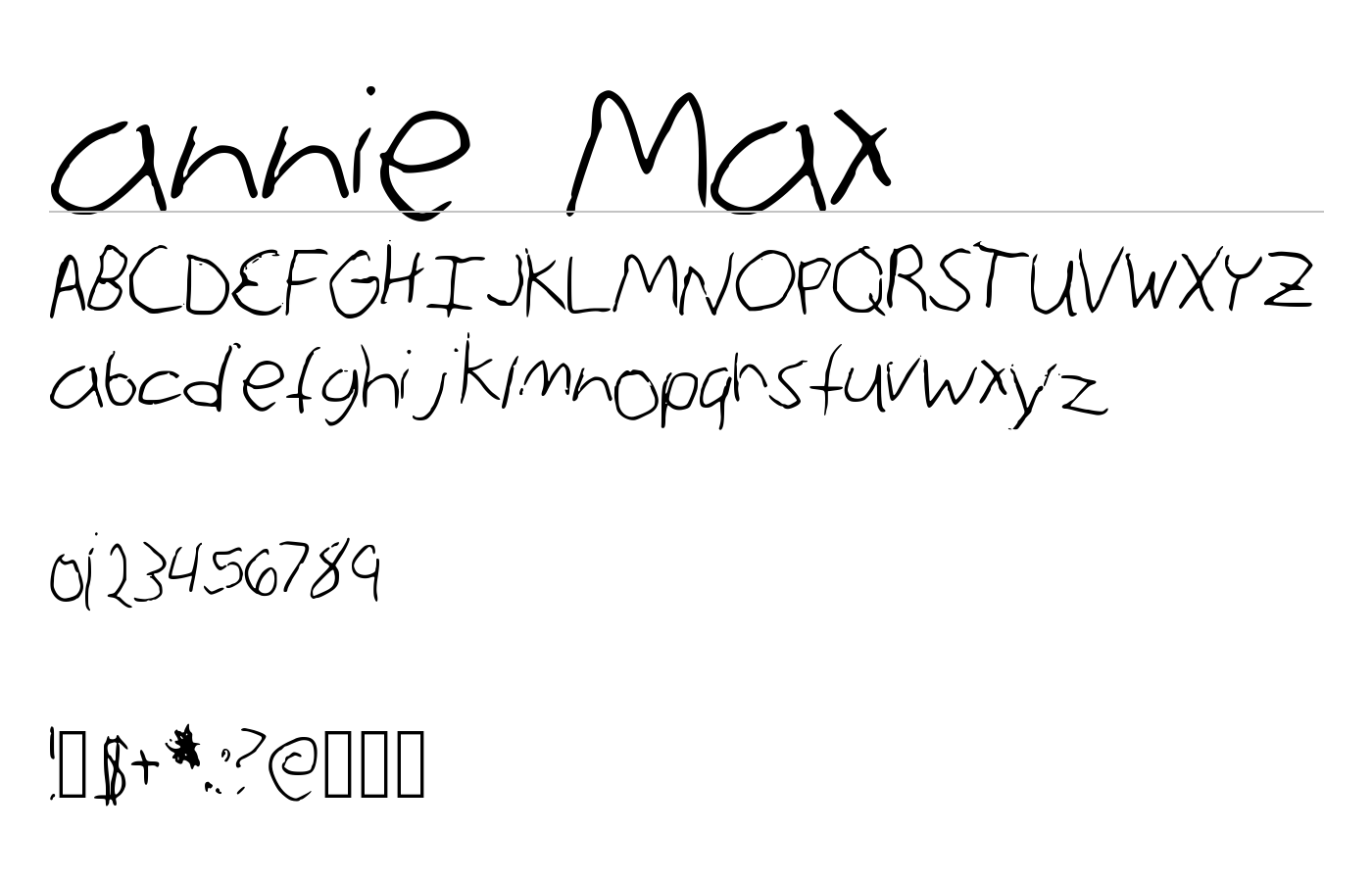
Annie Max is a playful, hand-drawn sans serif font that has a casual and organic feel with its irregular lines and slightly rough texture. This lightweight, narrow typeface captures a youthful and informal personality, making it ideal for creative projects, children’s books, and personal branding that seek a warm and approachable style. Its unique handwritten charm makes it best suited for headlines, invitations, and artistic expressions where a touch of spontaneity is desired.
annie Max Font
About annie Max Font